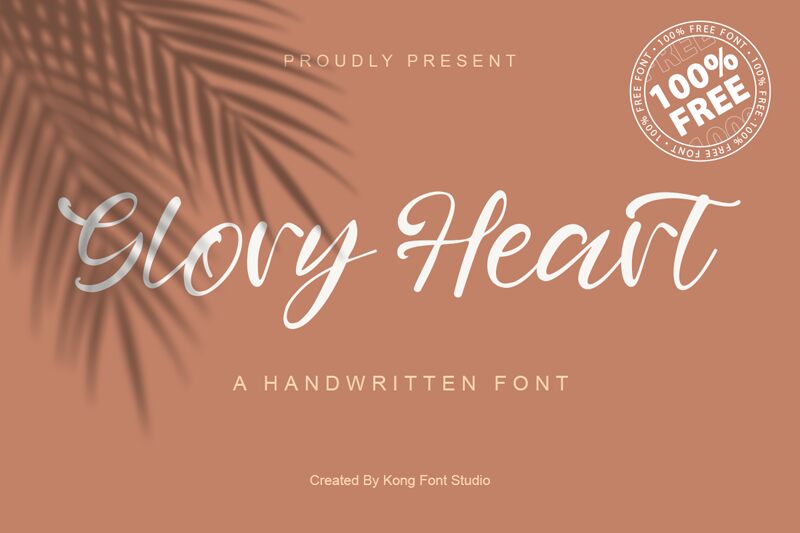
Glory Heart
Glory Heart, a charming semi-light handwritten font by Kong Font, brings a touch of whimsy to any project. Its delicate strokes and playful curves evoke a sense of warmth and tenderness. Ideal for wedding invitations, baby announcements, or romantic greeting cards, Glory Heart adds a personal and heartfelt touch. With its legible yet artistic appeal, this font is also suitable for children's books or craft-related branding. Let your creativity shine as you infuse your projects with the magical allure of Glory Heart's distinctive handwritten style.